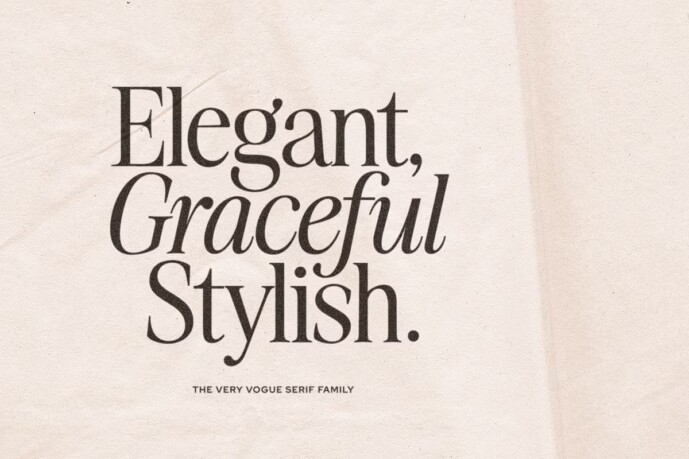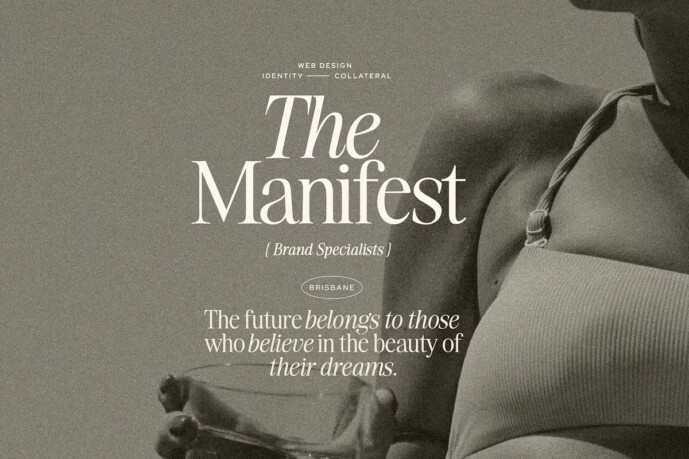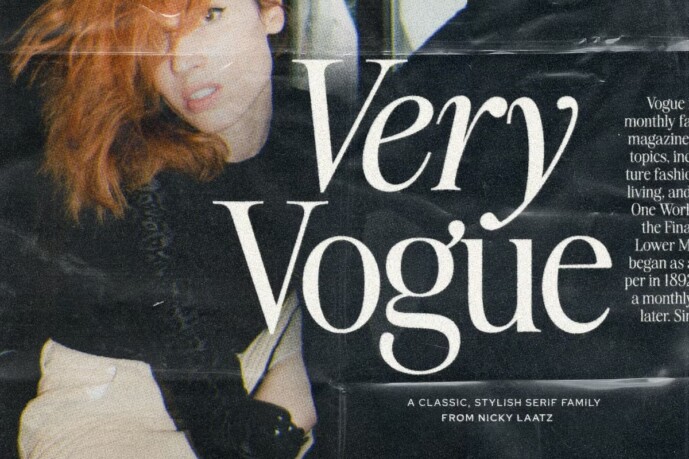
Very Vogue Font
Very Vogue Font – Based on glamourous fashion magazines from the 1980s and beyond and dripping with class and pizazz, say hello to the new ‘VeryVogue’ Serif family! Classic and refined, and the epitome of style, the Very Vogue Serif Family has soft curves and attention to detail, making the VeryVogue Display Serif a must for any projects requiring that upper level of class.
The design of this font is incredible as it has been carefully assembled to communicate the fabulousness associated with fashion; the font is inspired by Vogue magazine typography. It is intricate lettering carefully crafted to project the feeling of smoothness and resilience, for which Very Vogue is renowned as a perfect font for editors, invitations to fashion shows, and advertising campaigns.
Whether projecting a chic logo for a couture line, producing elegant invitations for any black-tie affair, or simply giving your work a vogue flavor, Very Vogue makes your work look smart and alluring at any given chance. Through a perfect mix of high-quality design and sophisticated artistry to make an excellent piece of work, Very Vogue is a font you can use to deliver timeless beauty.